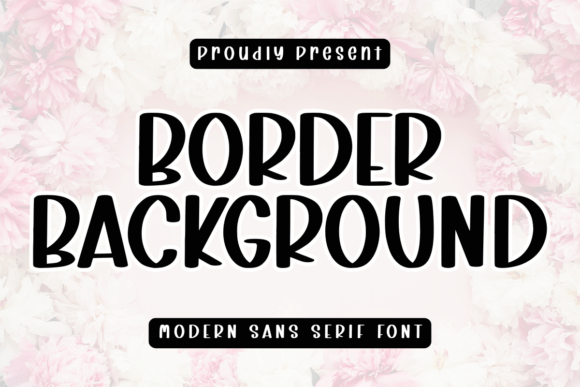
The Holiday Cheer Font: A Comprehensive Guide to Border Background
It’s that time of the year again – the season for creating holiday-themed designs that bring joy and cheer to our loved ones. As designers, crafters, and creative hobbyists, we’re always on the lookout for the perfect font to make our projects stand out. I still remember the year I spent hours searching for the ideal font for a client’s Christmas card project, only to stumble upon Border Background – a festive and fun sans serif font that instantly added a touch of holiday magic to my designs.
An Honest Review of Border Background
So, what makes Border Background so special? Let’s dive into the good stuff! 😊
- ✨ Festive and fun design: Border Background boasts playful curves and bold lines that scream holiday cheer.
- ✅ Perfect for cards and invitations: This font is ideal for creating eye-catching holiday cards, invitations, and other festive graphics.
- 🎉 Highly versatile: Border Background can be used for a wide range of design projects, from digital graphics to print materials.
Of course, no font is perfect, and Border Background has a few minor quirks:
- 🤔 Limited use outside of holiday themes: While Border Background is amazing for holiday designs, it might not be the best choice for other types of projects.
- ⚠️ Some glyphs may require manual adjustment: Depending on the design, you might need to tweak certain glyphs to get the perfect look.
A Practical Guide to Using Border Background
The Designer Inspiration Behind Border Background
Border Background was designed with the holiday season in mind. The creator wanted to craft a font that would bring a smile to people’s faces and add a touch of festive fun to their designs. Inspired by traditional holiday decorations and typography, Border Background is the perfect blend of playfulness and sophistication.
| Font Name | Border Background Font |
| Author | CraftedType Studio |
| What type of designs is Border Background best suited for? | Border Background is perfect for holiday-themed designs, such as cards, invitations, and festive graphics. |
| Is Border Background available in different weights or styles? | Border Background is a single font, but it features OpenType glyphs and stylistic alternates to provide some variation. |